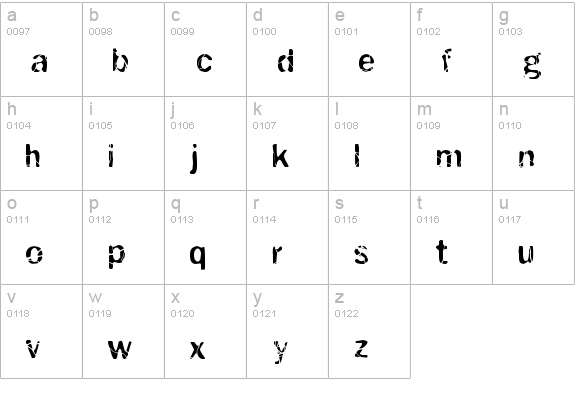
Electrickle Font Details
Electrickle font is a modern and stylish typeface that brings a touch of electricity to your designs. Its sharp edges and sleek lines give it a dynamic and energetic feel, making it perfect for projects that need a bold and impactful look. Whether you're designing a poster, logo, or website, Electrickle font will electrify your creations and make them stand out from the crowd. Best of all, Electrickle font is completely free to download at FontsMarket.com. You can easily add this electrifying font to your collection and use it in your projects without any cost. Don't miss out on this opportunity to enhance your designs with the striking visuals of Electrickle font. Download it today and let your creativity shine with its electrifying energy!